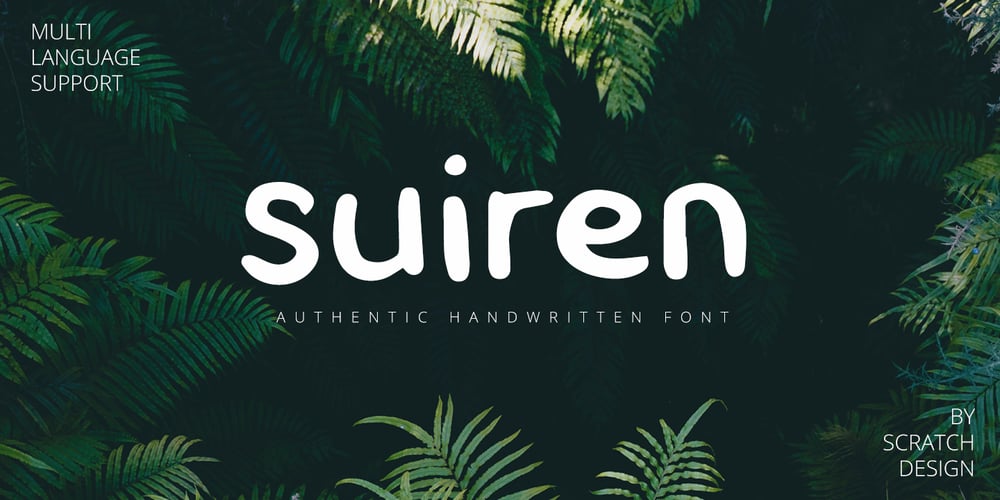
Suiren
Suiren font
Suiren Font Family was designed by Gitayogi Irhandi and published by Scratch Design. Suiren contains 1 styles and family package options. Suiren is a handwritten font with a casual style. Suiren made for a casual design theme like summer vibes, sports, kids, food, beverage, quote, novel, book, etc. Feature: Uppercase & Lowercase Number Punctuation. Multilingual Support (ÀÁÂÃÄÅÇDÐEÈÉÊËIÌÍÎÏNÑOØÒÓÔÕÖUÙÜÚÛWYÝŸỲŸÆŒßÞþ) Support in Mac and Windows OS Easy to install We hope you like it and thank you so much for your purchase 🙂 Scratch Design